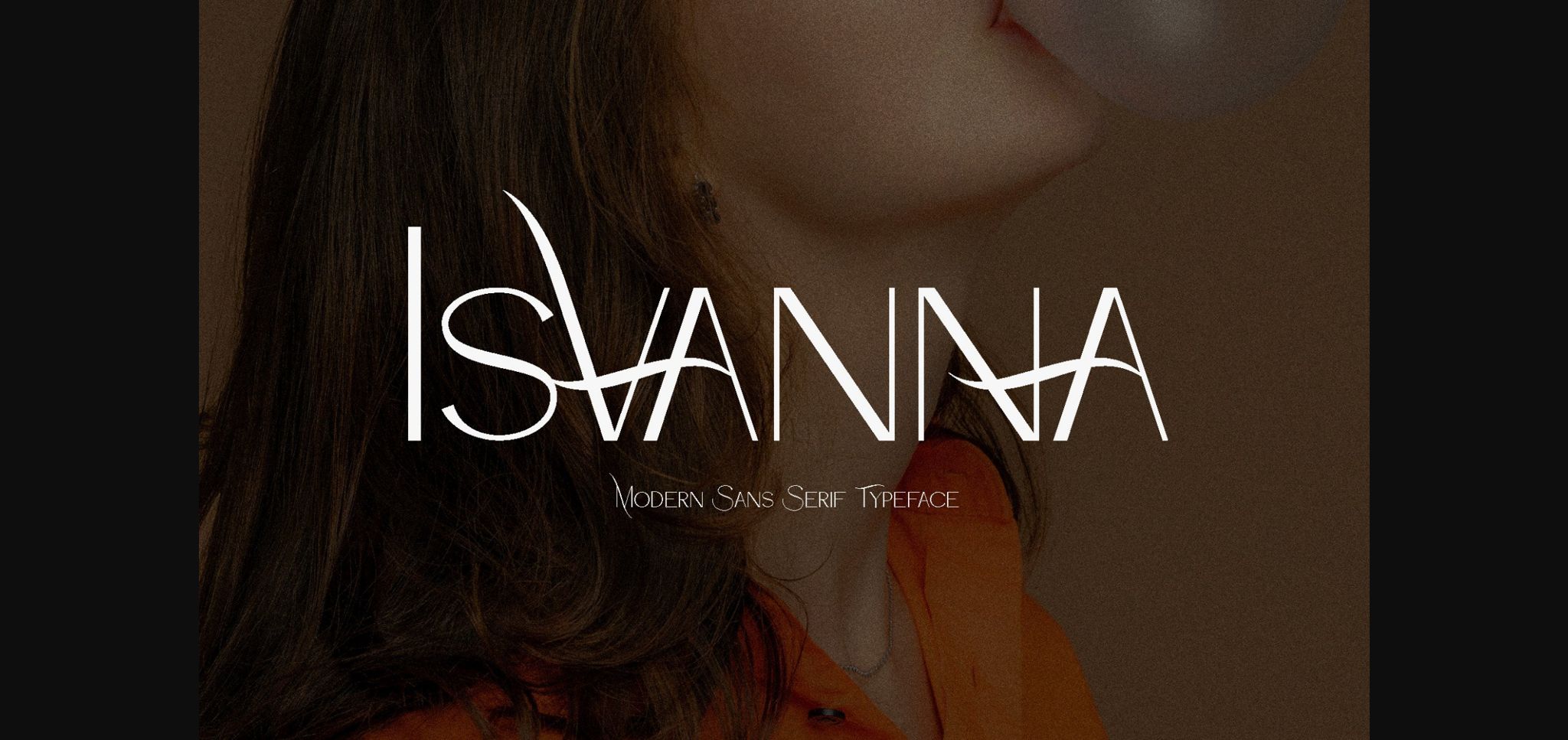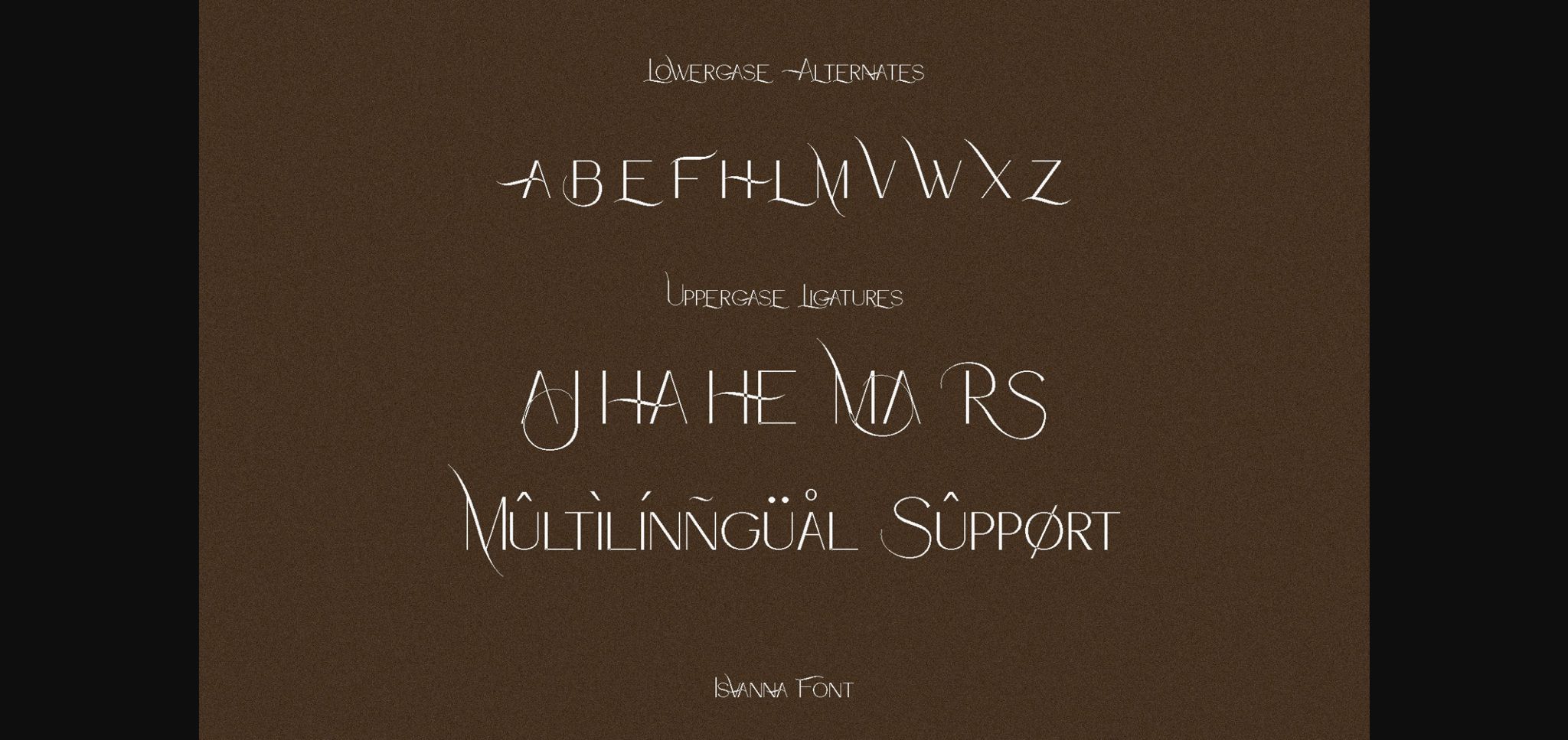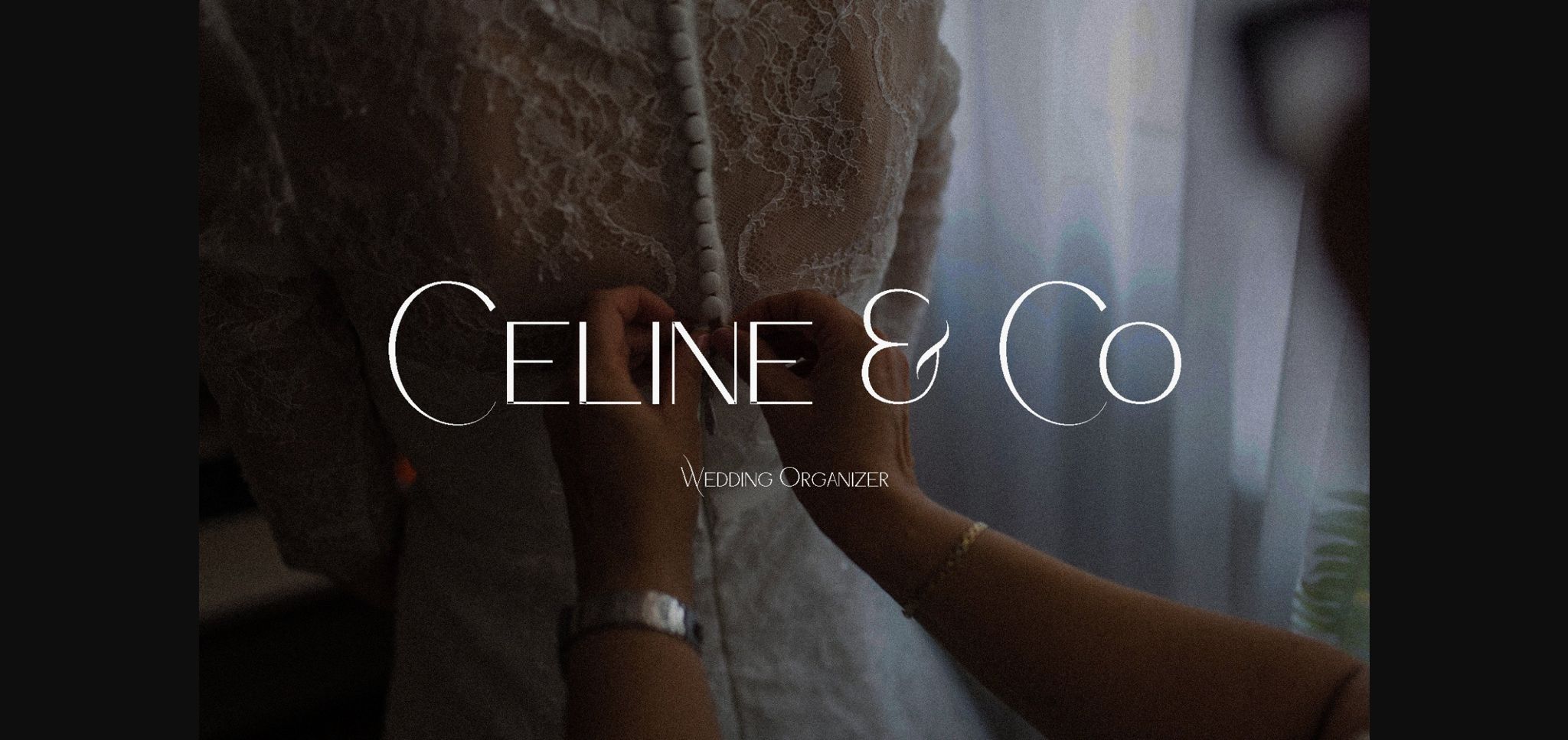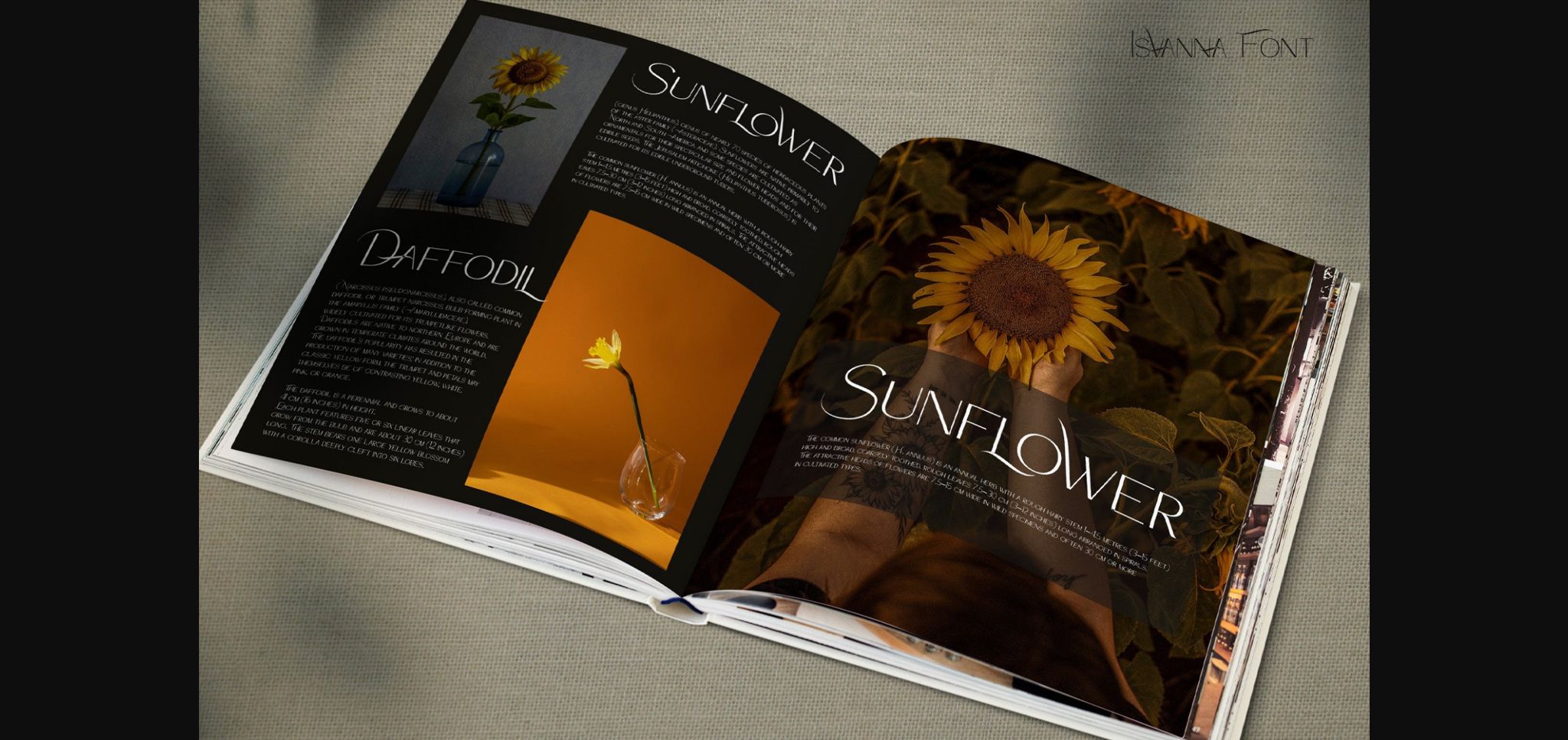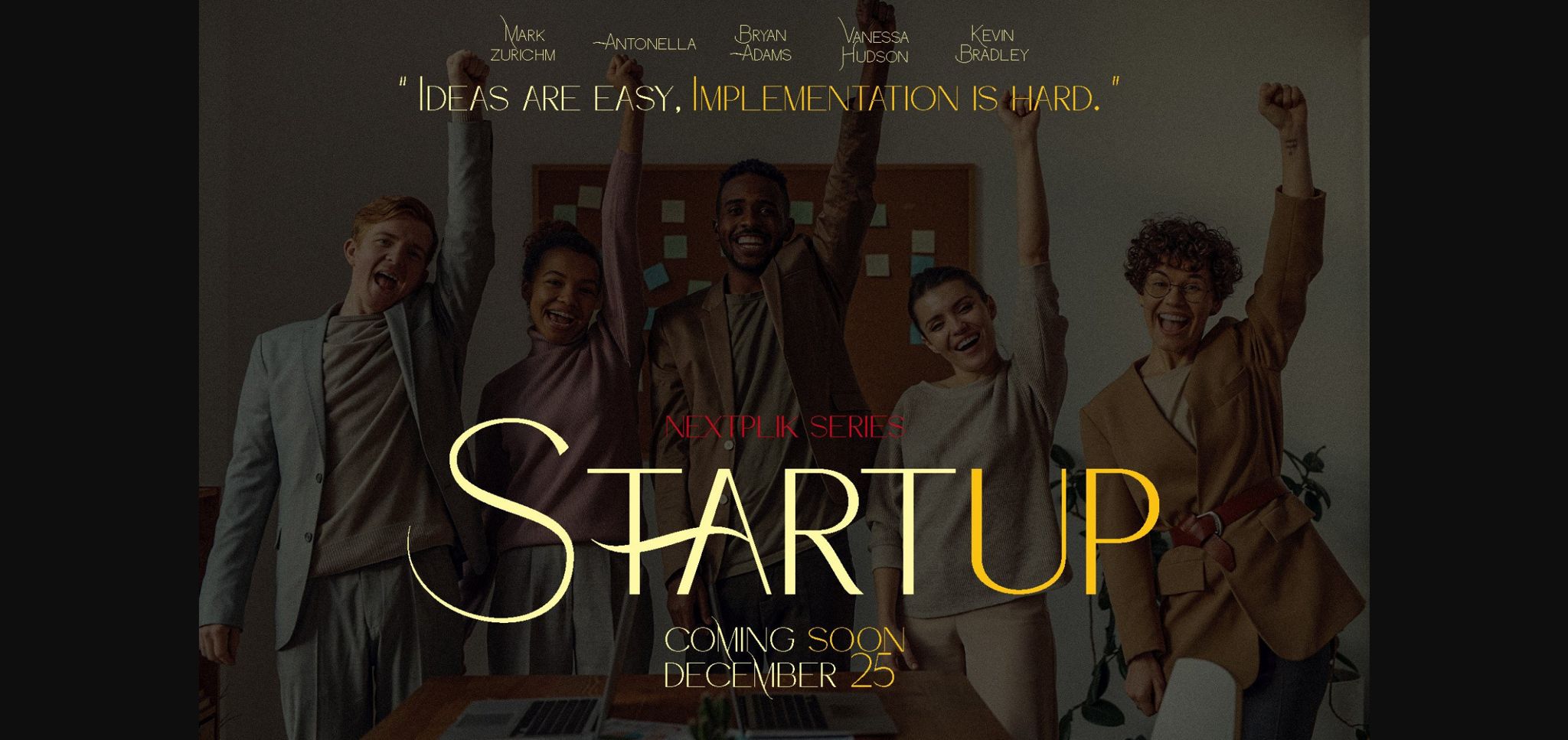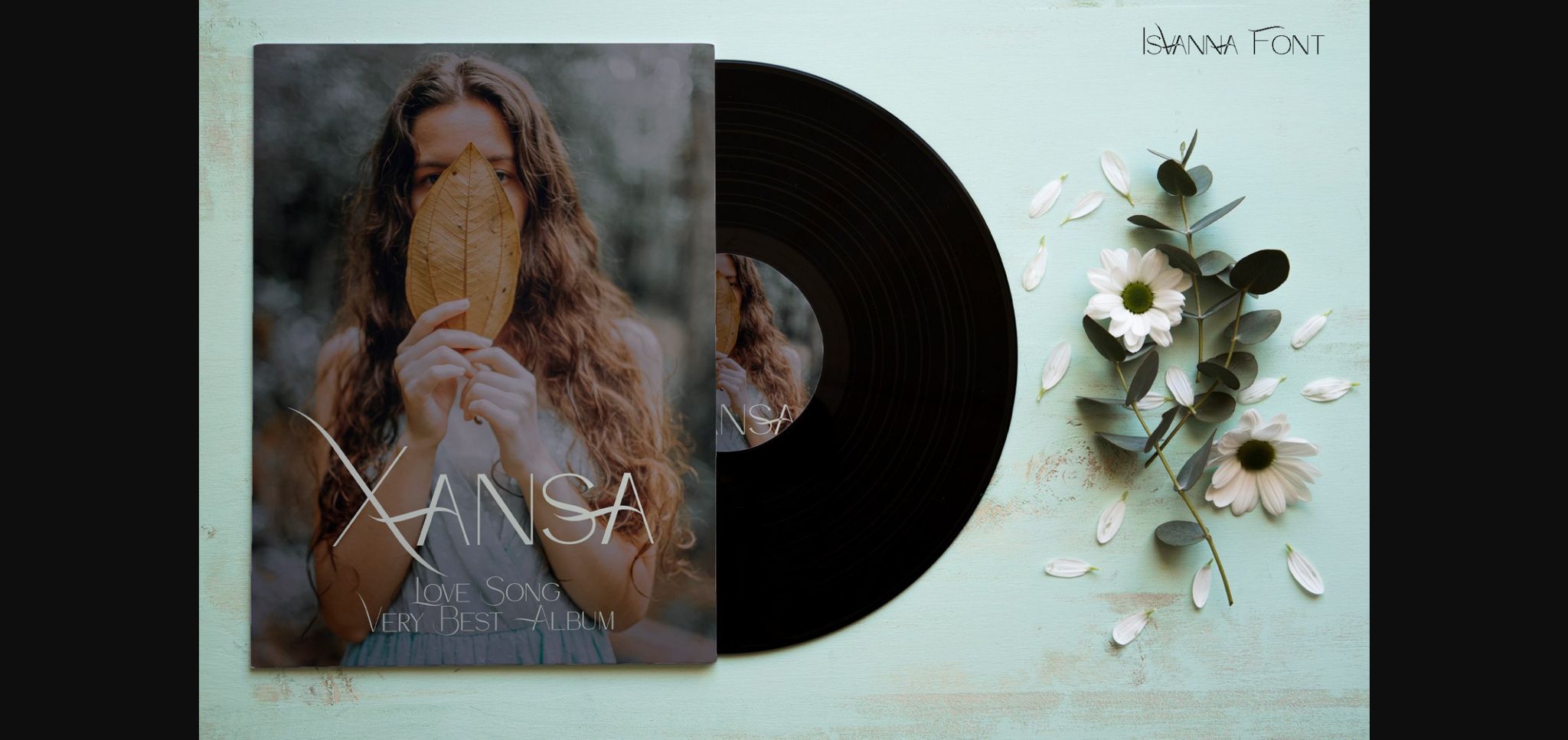
Isvanna Font
About Isvanna Font
Isvanna is an elegant sans serif font that will bring your projects a touch of luxury and style. It’s the perfect match for logotypes, branding, wedding monograms and invitations, blog headlines, and much more. Flip through all the previews and get inspired by this font.